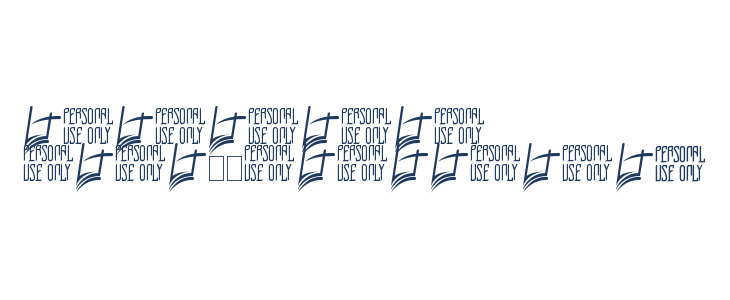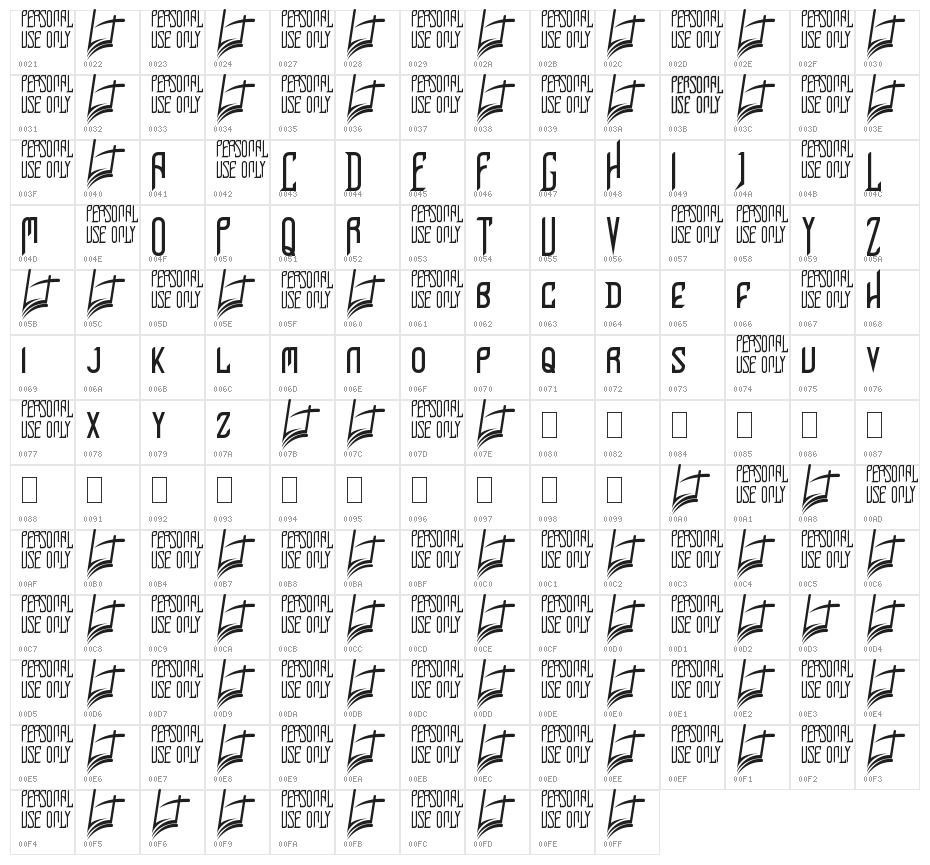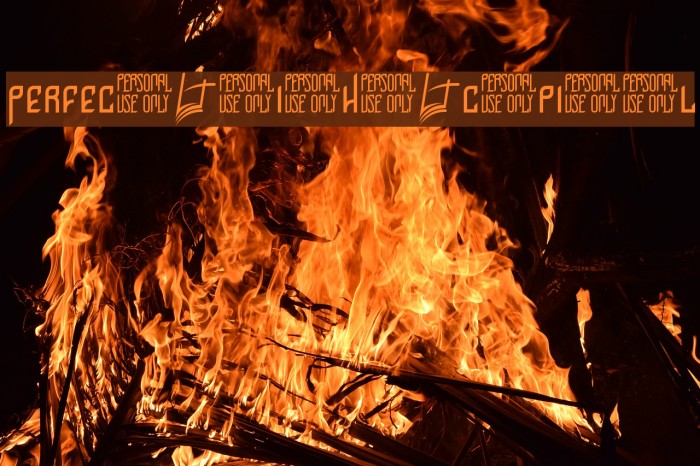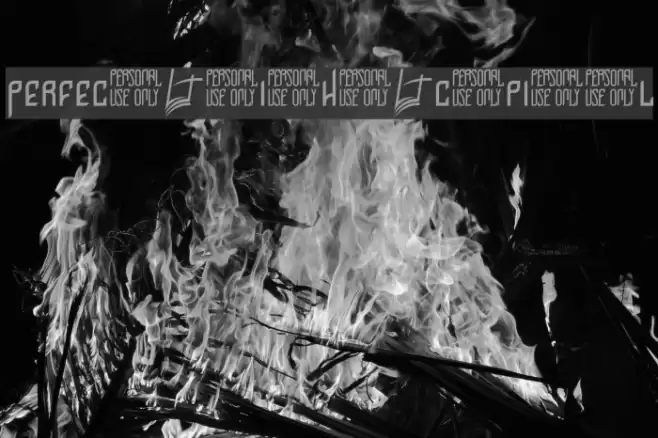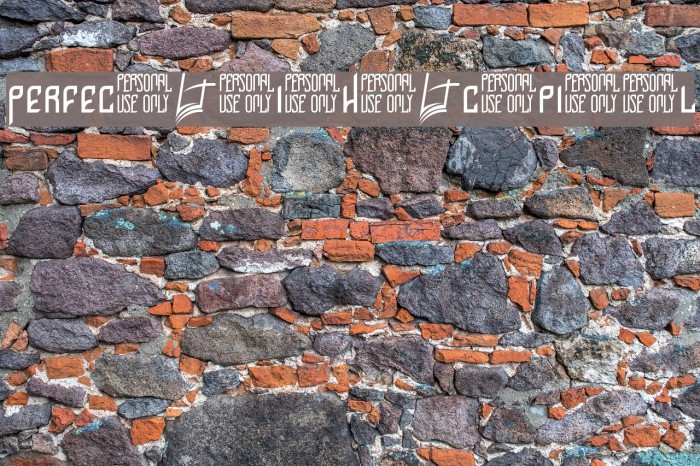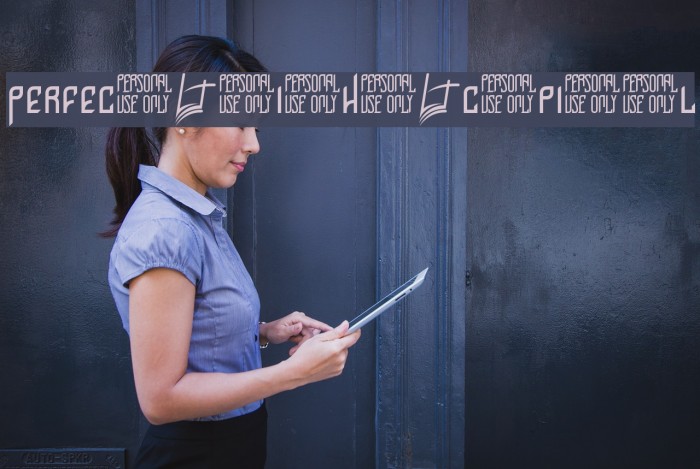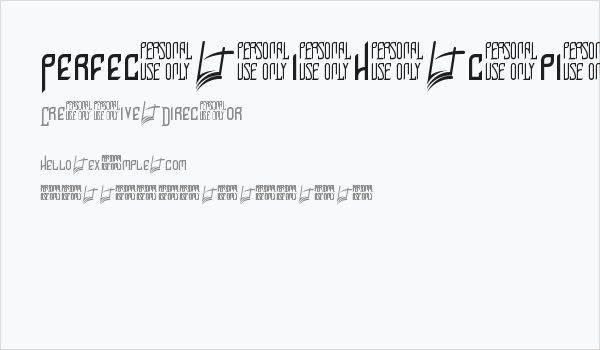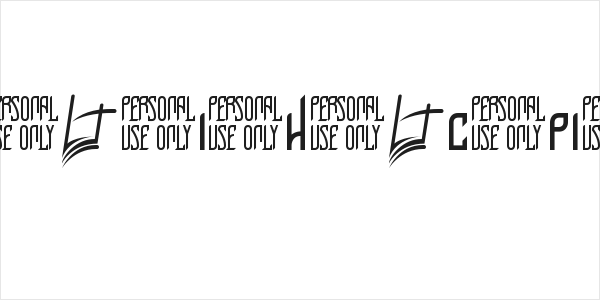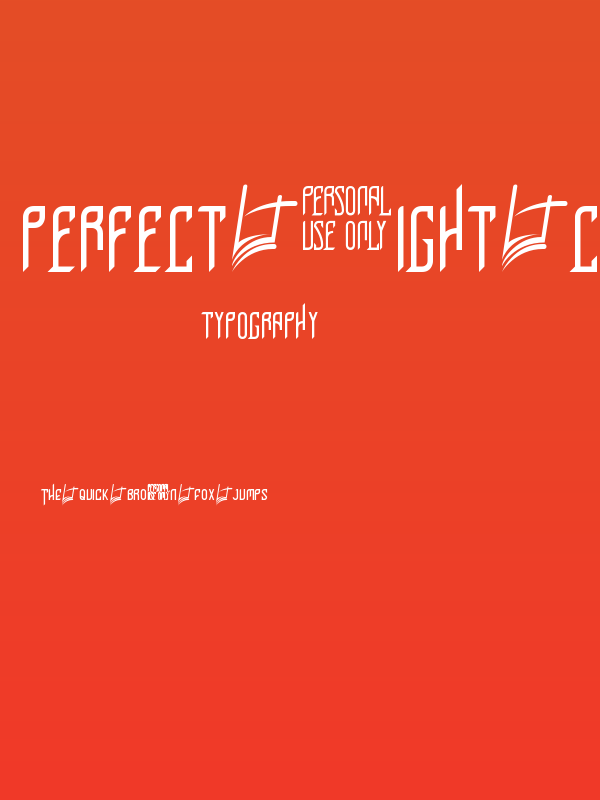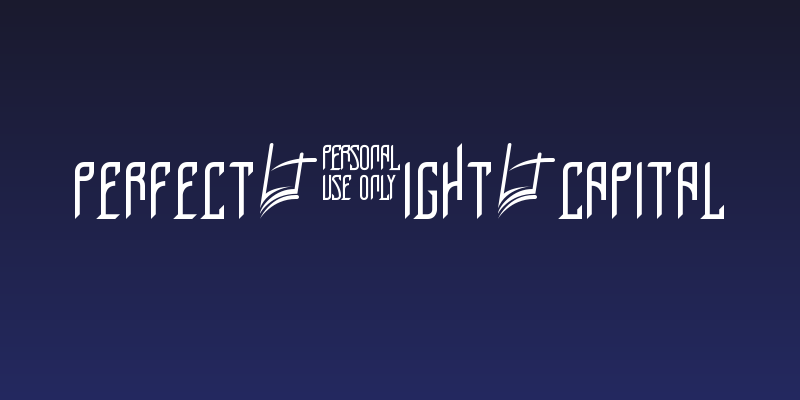
Perfect Night capital Font
Perfect Night capital Description
This font features a bold and striking design with elongated, narrow characters that convey a sense of modernity and sophistication. The uppercase letters are tall and slightly condensed, giving them a sleek appearance. The font has a unique style with angular edges and a geometric influence, making it stand out. The overall look is both futuristic and elegant, suitable for creative and contemporary projects. The spacing between characters is tight, enhancing its compact and cohesive look. This font is perfect for making a bold statement in any design.